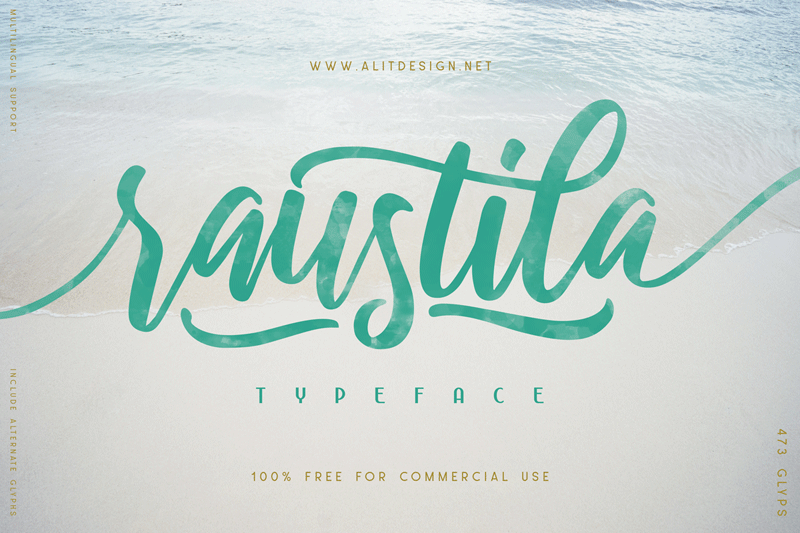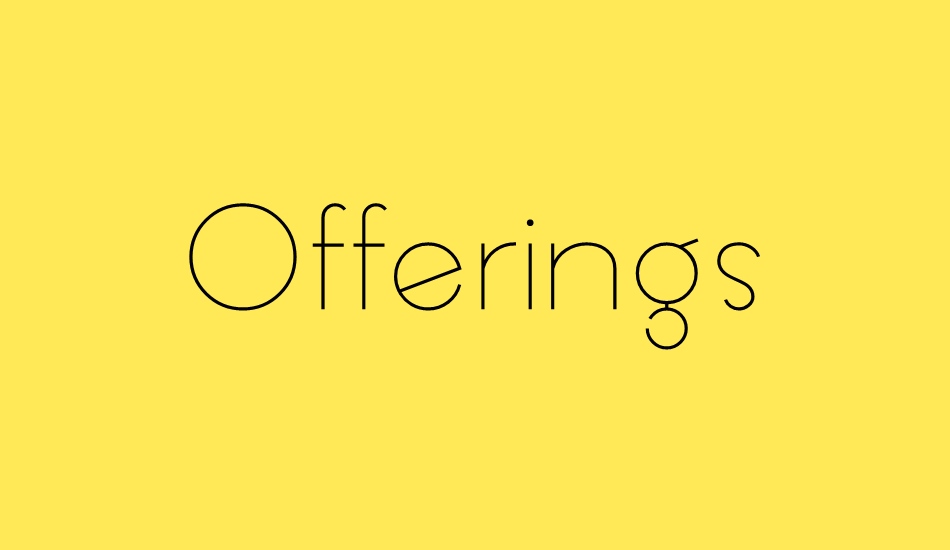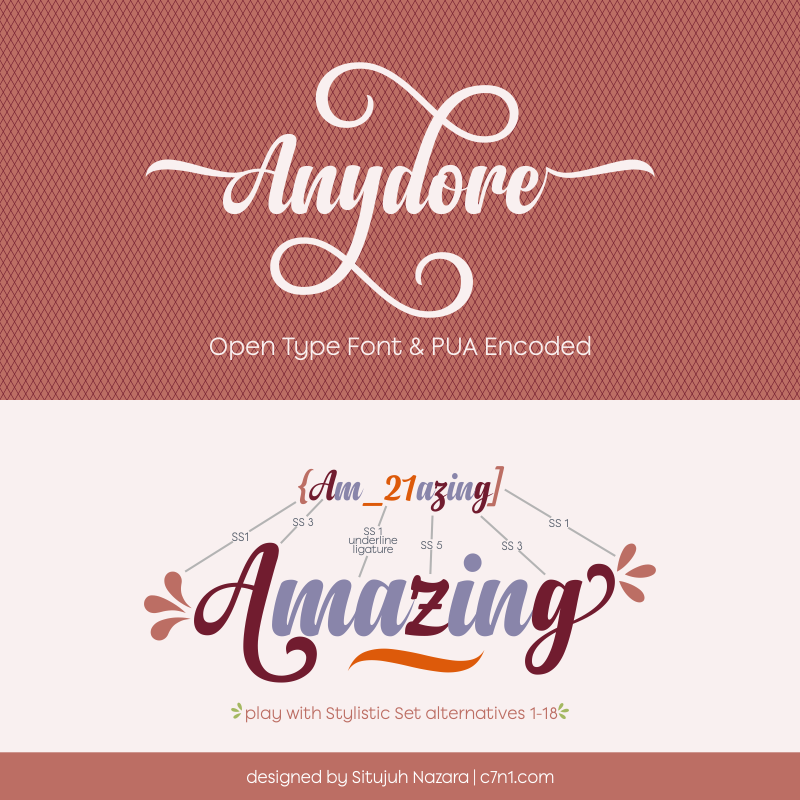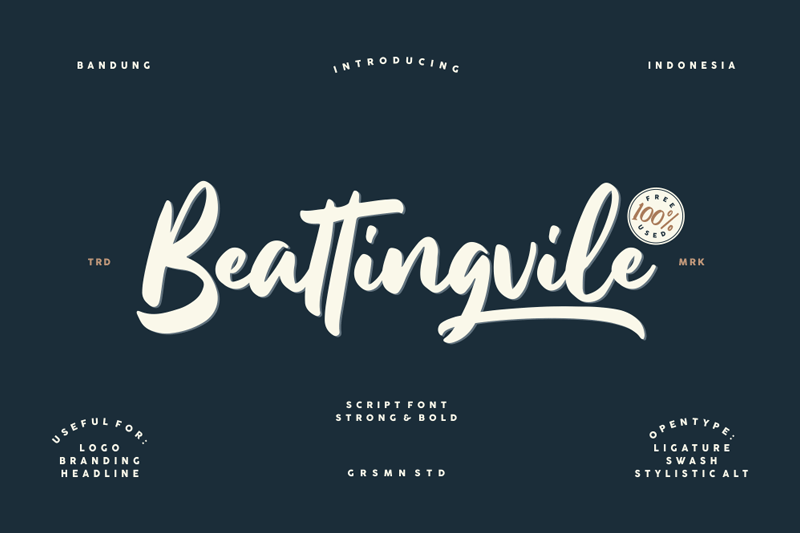
The open source fonts in the google fonts catalog are published under licenses that allow you to use them on any website whether its commercial or personal.
Google font free for commercial use. The font library itself is huge and at my count has 847 free fonts for use on web projects. All of the fonts use the open fonts license which grants unrestricted rights to use modify share or whatever. Audrey free font has a neat yet rushed feel. Making the web more beautiful fast and open through great typography.
Download this free font and use it in any way you like. Free to use all fonts are released under open source licenses. Code developer api create dynamic apps by querying google fonts to get an accurate list of the families currently. Google fonts allows commercial use of their huge font library so is the logical first place to look for any website or online project.
The letters lines are smooth and the words are legible. Enjoy the worlds largest collection of commercial use fonts here at fontspace. Free fonts for commercial use. Google fonts are served by google themselves so all you.
The simple answer is yes all the fonts included in the google fonts library are released under licenses that allow you to use them for free in both commercial and personal applications. Thats right zero license fees. These free fonts are from different typographersartists who share their works freely for commercial and personal uses. You can use them in any non commercial or commercial project.
This is my list of 88 free fonts for artists graphic designers web designers and individuals that can be used for commercial personal or work purposes. Free fonts for commercial use new fresh fonts most popular fonts alphabetic fonts largest font families trending fonts home tags google web hello you seem to have javascript turned off. 88 carefully selected free fonts for commercial use created by designers and typographers. You can use these fonts for commercial projects.
It is a handwritten font with unique details so make sure you emphasize it in your projects.